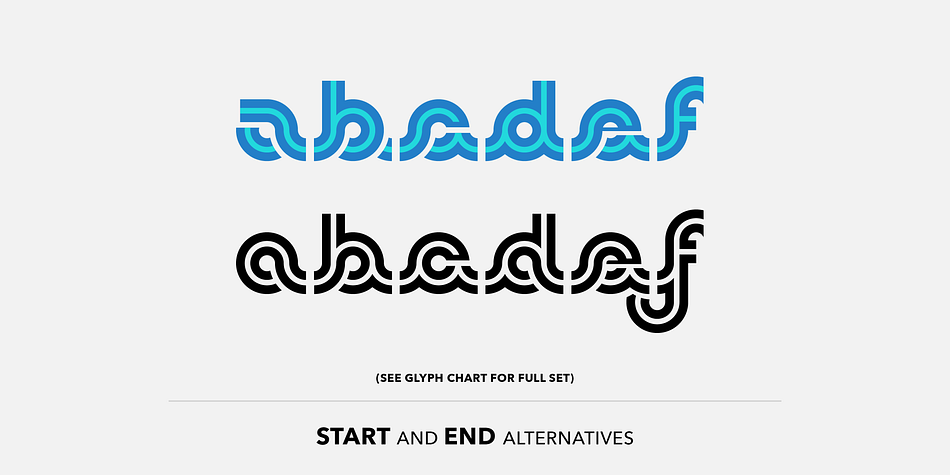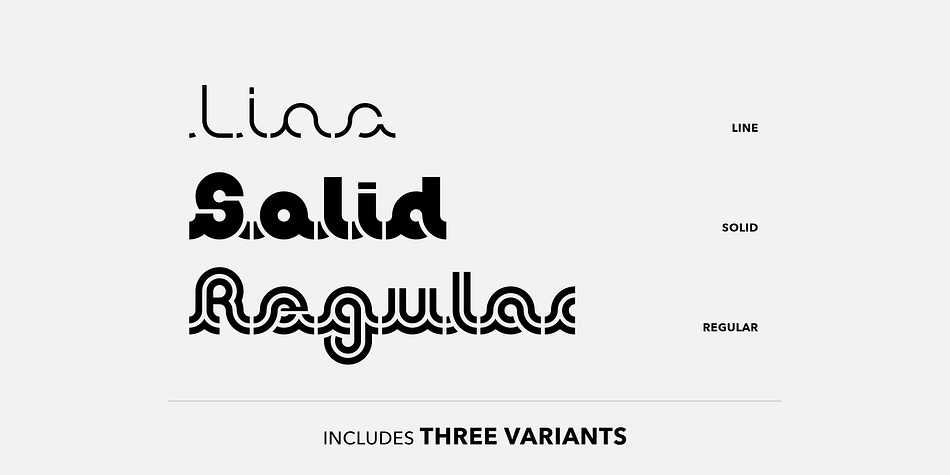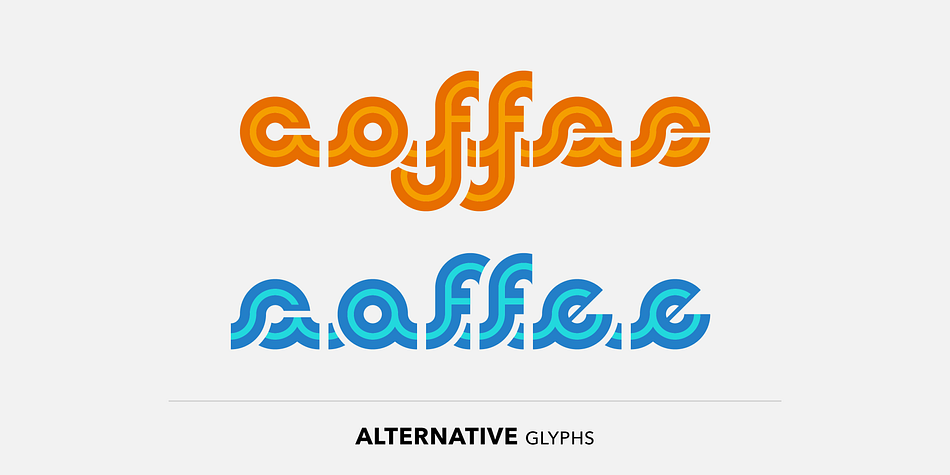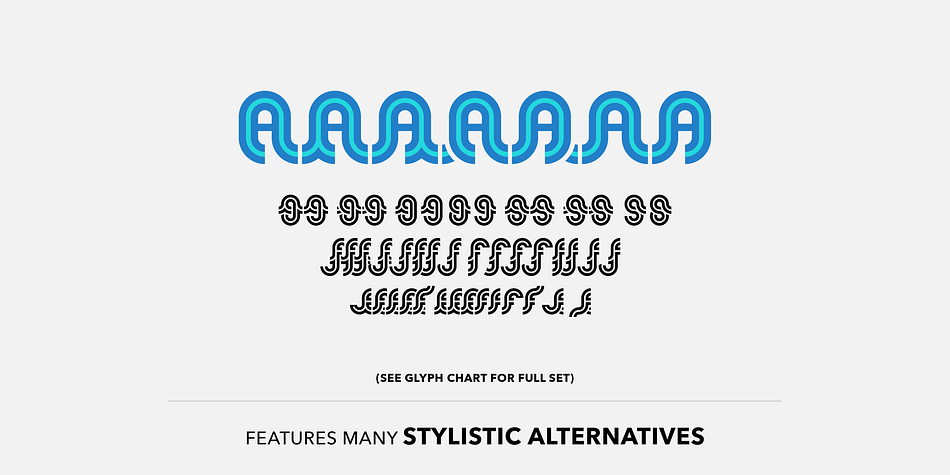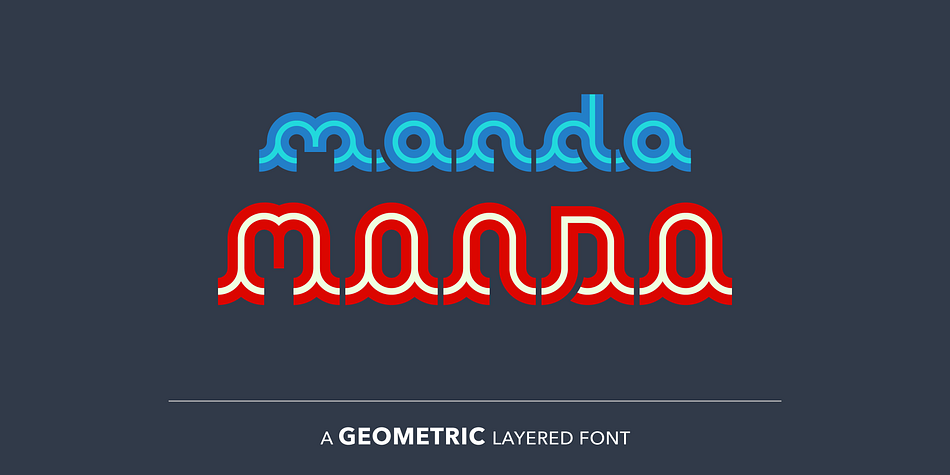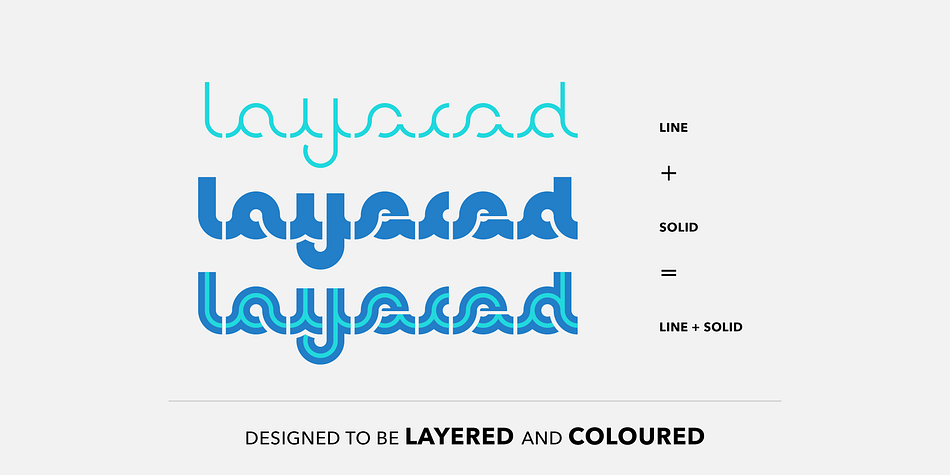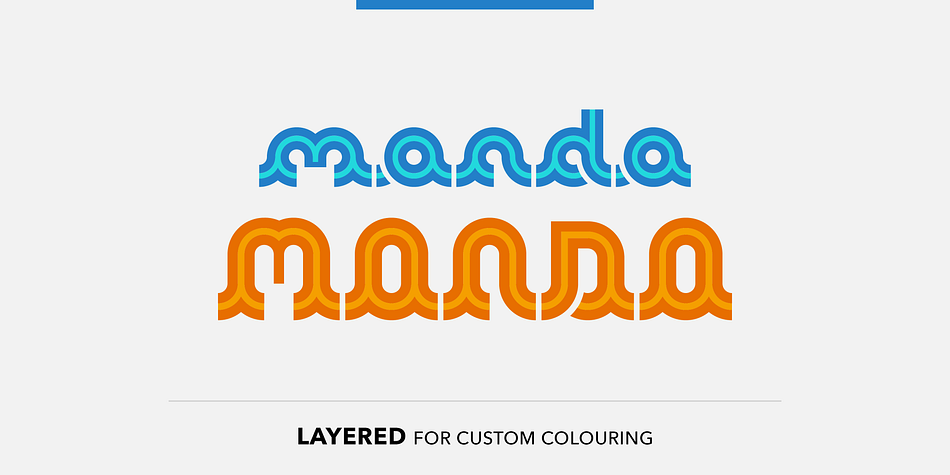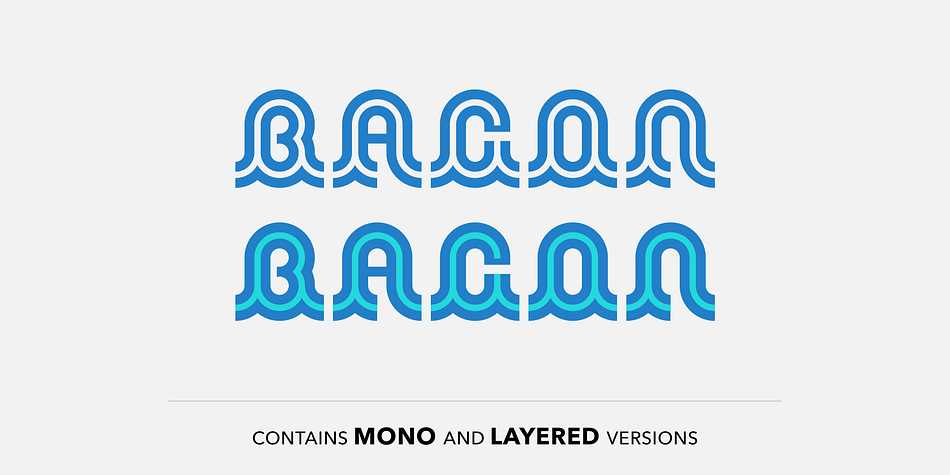
Designed by Craig Stainton, SB Mondo is a display and script font family. This typeface has three styles and was published by SelfBuild Type Foundry.
• Solid and Line are designed to be layered for custom colour combinations.
• Contains many alternative glyphs (see glyph set).
SB Mondo is a geometric connecting typeface designed for display use. It contains many alternative glyphs for creative combinations. SB Mondo Line and Solid are designed to be layered and coloured separately and SB Mondo Regular is the mono version.